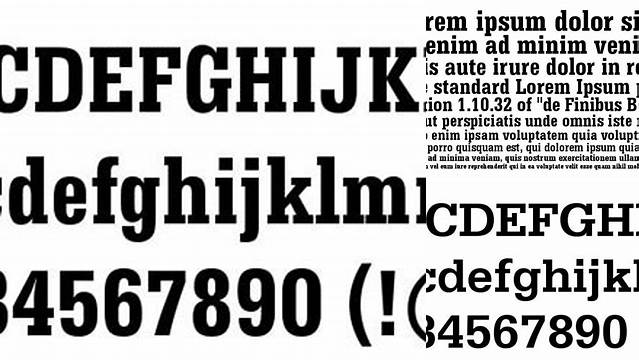
Serifa Bold Condensed Font: Free Download Guide
What is Serifa Bold Condensed Font?
Serifa Bold Condensed is a typeface known for its strong, clear, and impactful appearance. Designed with a condensed structure, it allows for more text to fit into a smaller space without sacrificing readability. The bold weight adds a level of emphasis, making it perfect for headlines, titles, and branding materials. Its serifs provide a classic touch, blending traditional and modern aesthetics seamlessly. This font is versatile, finding its place in various design projects such as posters, magazines, websites, and even logo designs. The condensed nature of the font makes it extremely useful when space is at a premium, ensuring your message is conveyed powerfully and efficiently.
When you're thinking about typography, it's not just about picking something that looks good; it's about choosing a font that communicates the right message. Serifa Bold Condensed does just that. It's assertive without being overbearing, making it ideal for conveying important information with a touch of elegance. Whether you're working on a cutting-edge tech startup's website or designing a sophisticated invitation, this font can adapt to various styles and themes. Plus, the availability of a bold version means you can really make those key phrases stand out, grabbing the reader's attention and ensuring they don't miss the most important parts of your content. So, if you’re aiming for a font that combines strength, readability, and a classic feel, Serifa Bold Condensed is definitely one to consider. It's a fantastic tool to have in your design arsenal.
Why Choose Serifa Bold Condensed?
Choosing the right font is crucial for any design project. Serifa Bold Condensed stands out for several reasons, making it a favorite among designers. Firstly, its bold weight ensures high visibility and impact, perfect for drawing attention to key information. The condensed nature of the font allows you to fit more text into limited spaces without compromising readability. This is especially useful in layouts where space is a premium, such as posters, brochures, and advertisements. Secondly, Serifa's classic serif design adds a touch of elegance and professionalism to your work, making it suitable for both traditional and modern designs. Its versatility allows it to be used across various platforms, from print to digital media, maintaining a consistent look and feel.
Another compelling reason to opt for Serifa Bold Condensed is its legibility. Despite being condensed, the font remains exceptionally readable, even at smaller sizes. This is vital for ensuring that your message is effectively communicated to your audience. Moreover, the strong, clean lines of the font contribute to a polished and professional appearance, enhancing the overall quality of your design. Whether you're designing a website, creating marketing materials, or working on a branding project, Serifa Bold Condensed can elevate your work and help you achieve your desired aesthetic. The font pairs well with other typefaces, offering flexibility in your design choices and allowing you to create visually appealing and balanced compositions. In essence, Serifa Bold Condensed offers a harmonious blend of style, functionality, and readability, making it an excellent choice for a wide range of design applications.